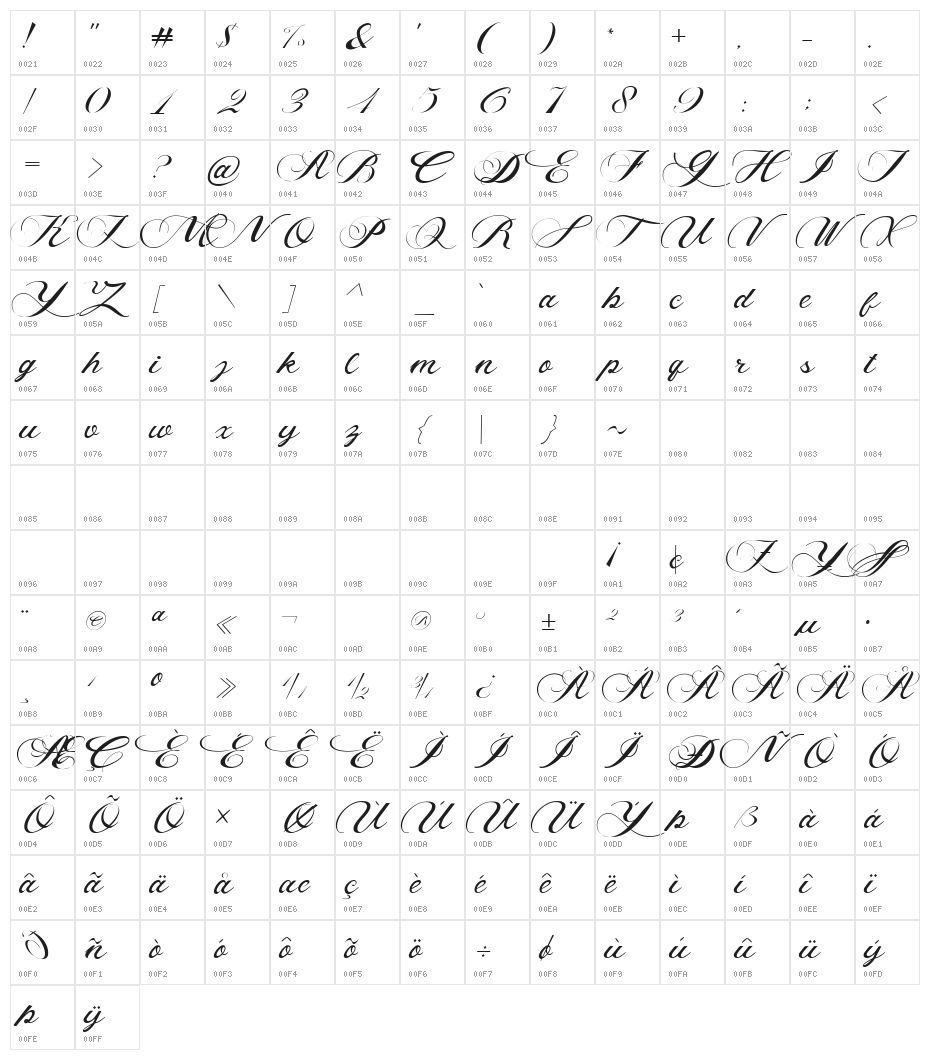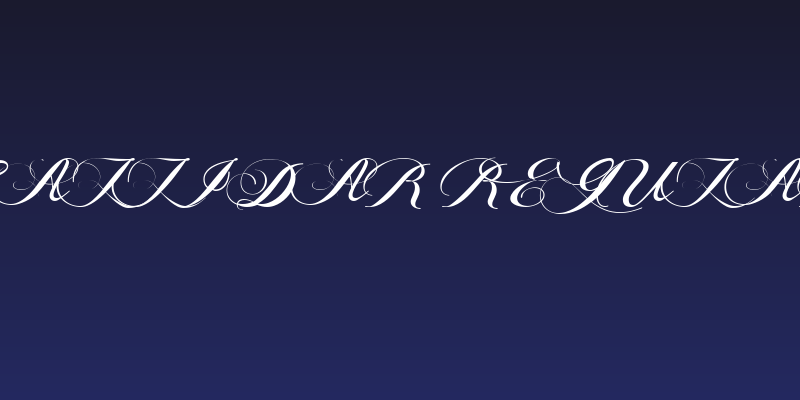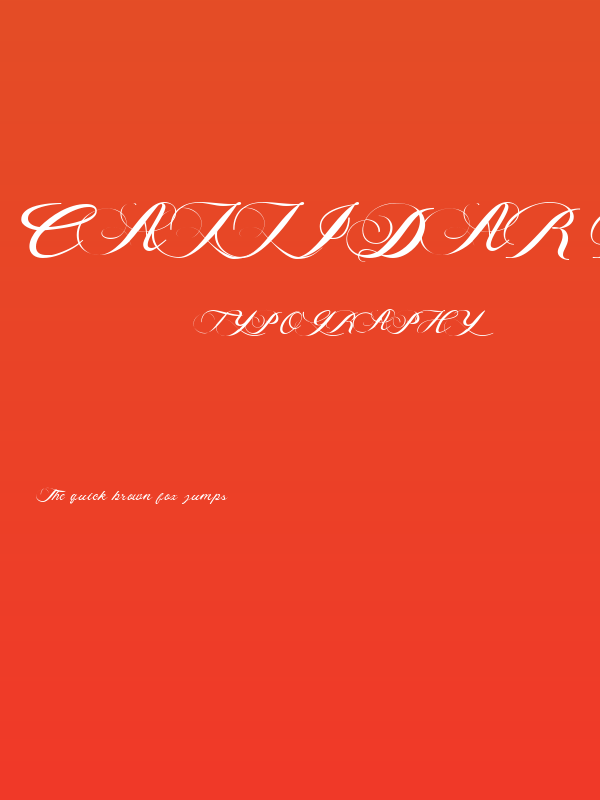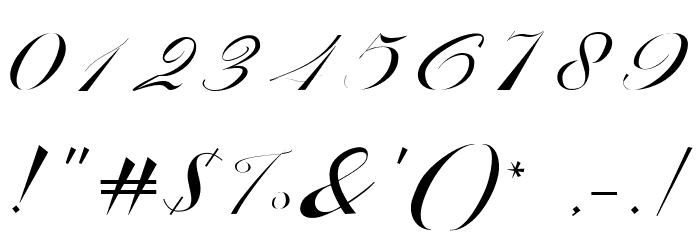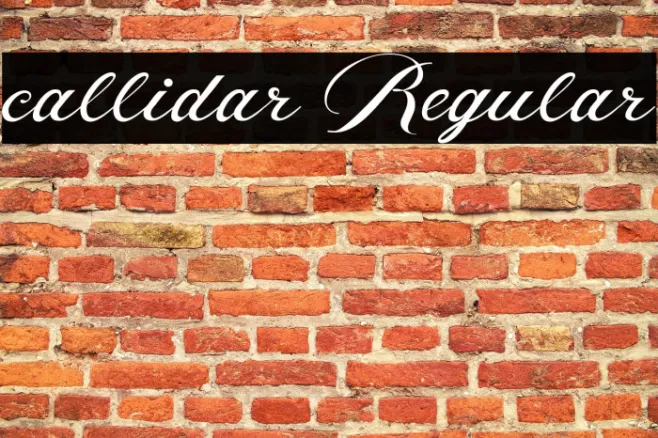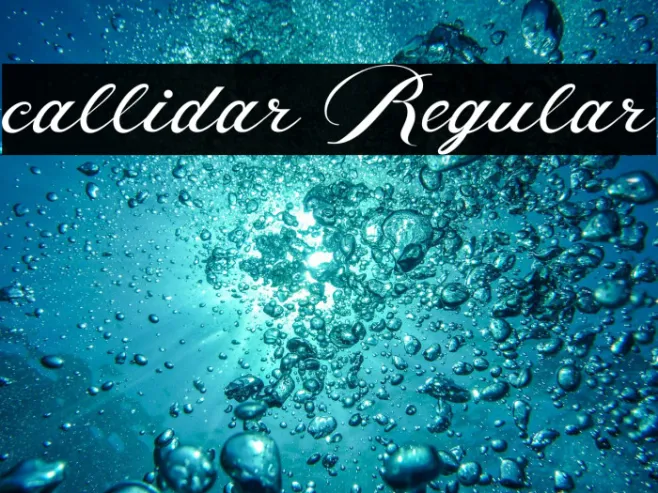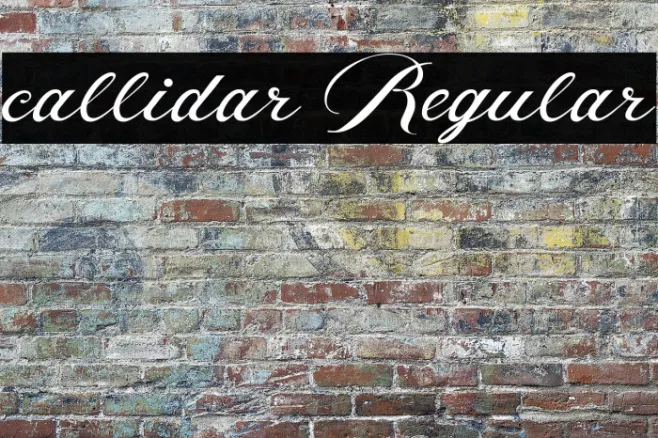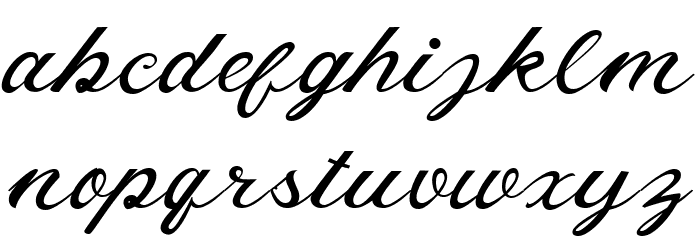
callidar Regular Font
callidar Regular Description
This font exudes elegance and sophistication with its flowing, cursive style. The uppercase letters are adorned with intricate swirls and flourishes, adding a decorative touch that makes each character stand out. The lowercase letters maintain a smooth, connected script that enhances readability while preserving the font's artistic flair. Numbers and special characters are crafted with the same attention to detail, ensuring a cohesive look across all text elements. The font's high contrast between thick and thin strokes adds to its dramatic appearance, making it ideal for projects that require a touch of luxury and refinement.
| Proposed Projects | Ideal for wedding invitations, luxury branding, elegant stationery, and high-end product packaging. |